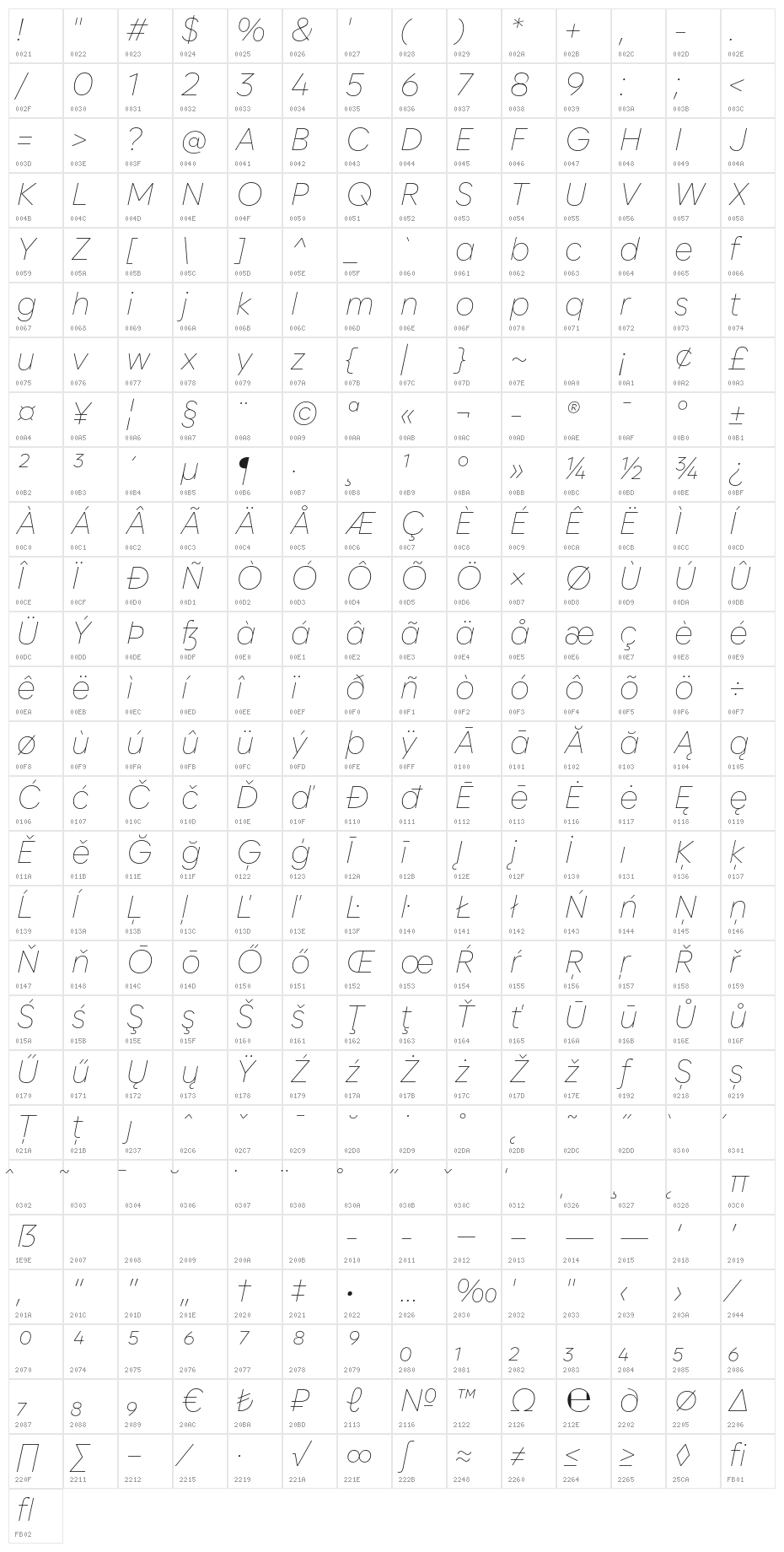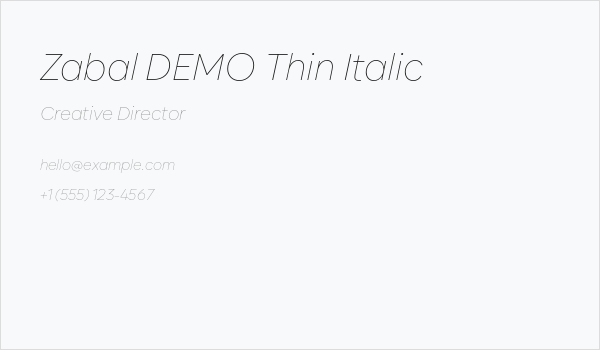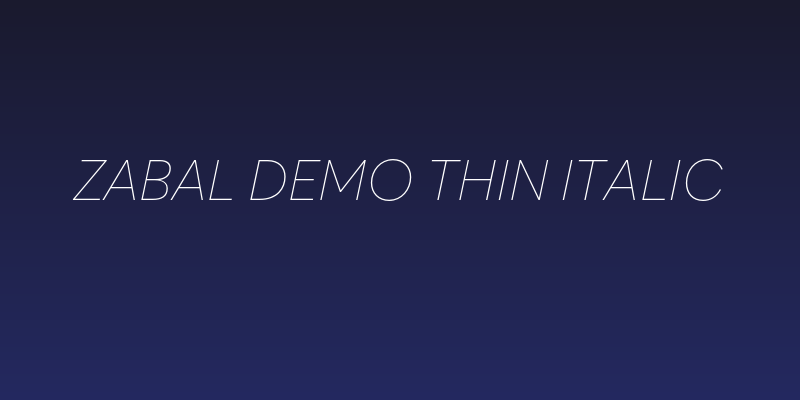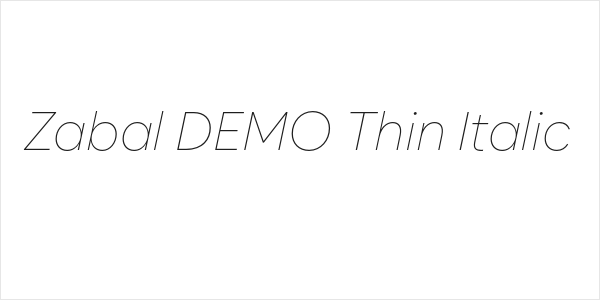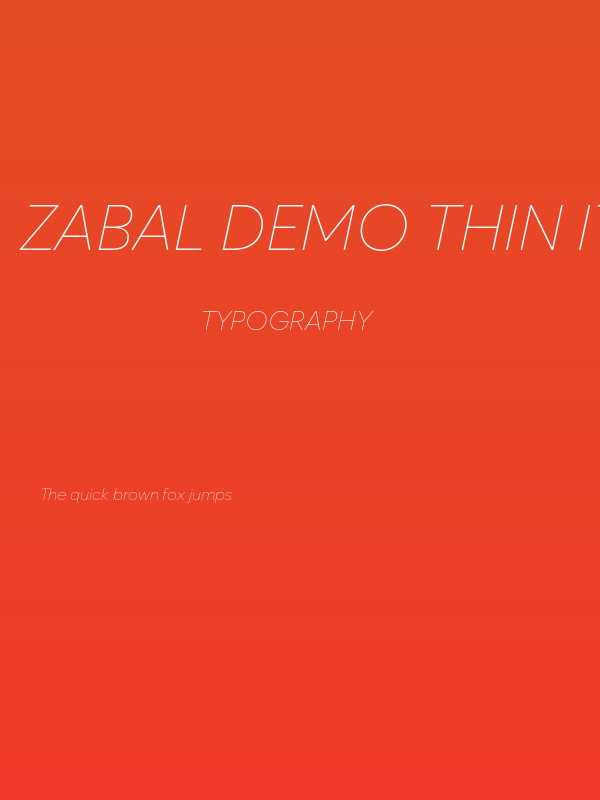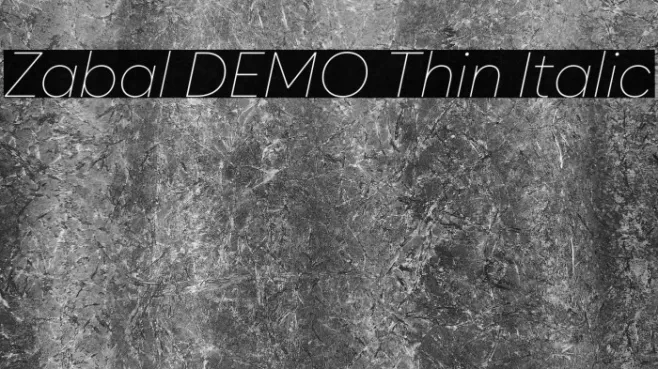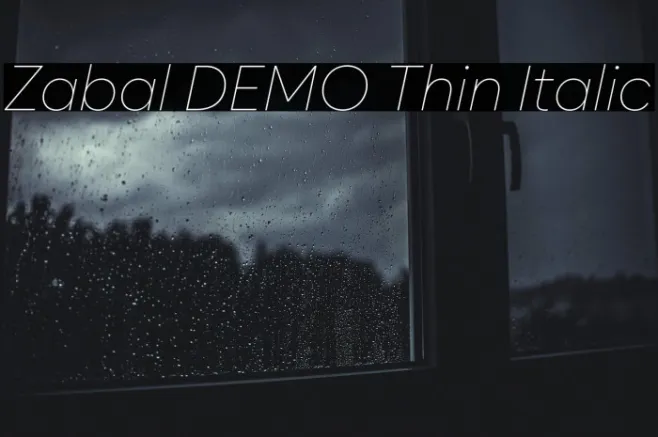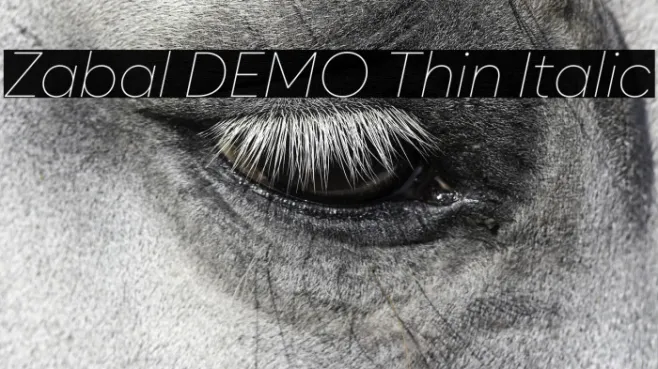
Zabal DEMO Thin Italic Font
Zabal DEMO Thin Italic Description
This font exhibits a sleek and modern design with a thin, elegant stroke that gives it a refined and sophisticated appearance. The italic style adds a dynamic and fluid quality, making it suitable for contemporary and stylish applications. The characters are well-proportioned with a consistent slant, enhancing readability while maintaining a minimalist aesthetic. The numerals and special characters are designed with the same thin strokes, ensuring uniformity across all glyphs. This font's clean lines and understated elegance make it versatile for various design projects.